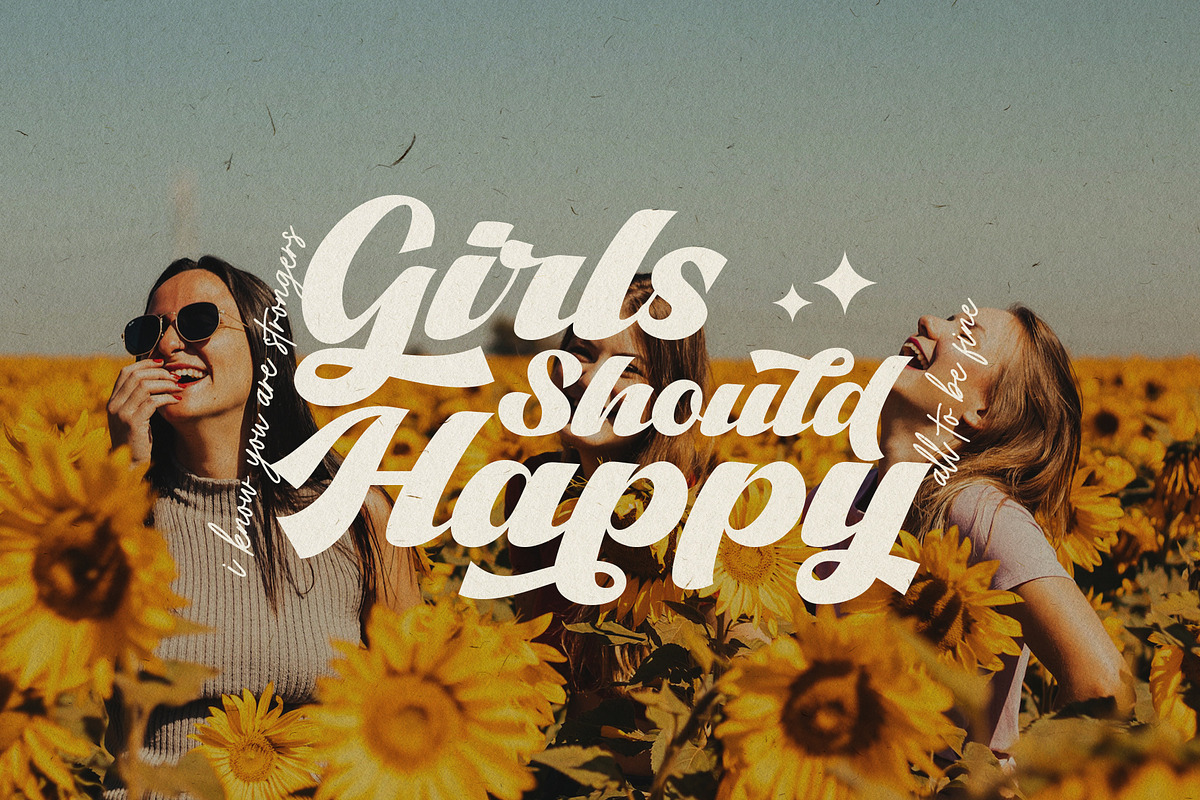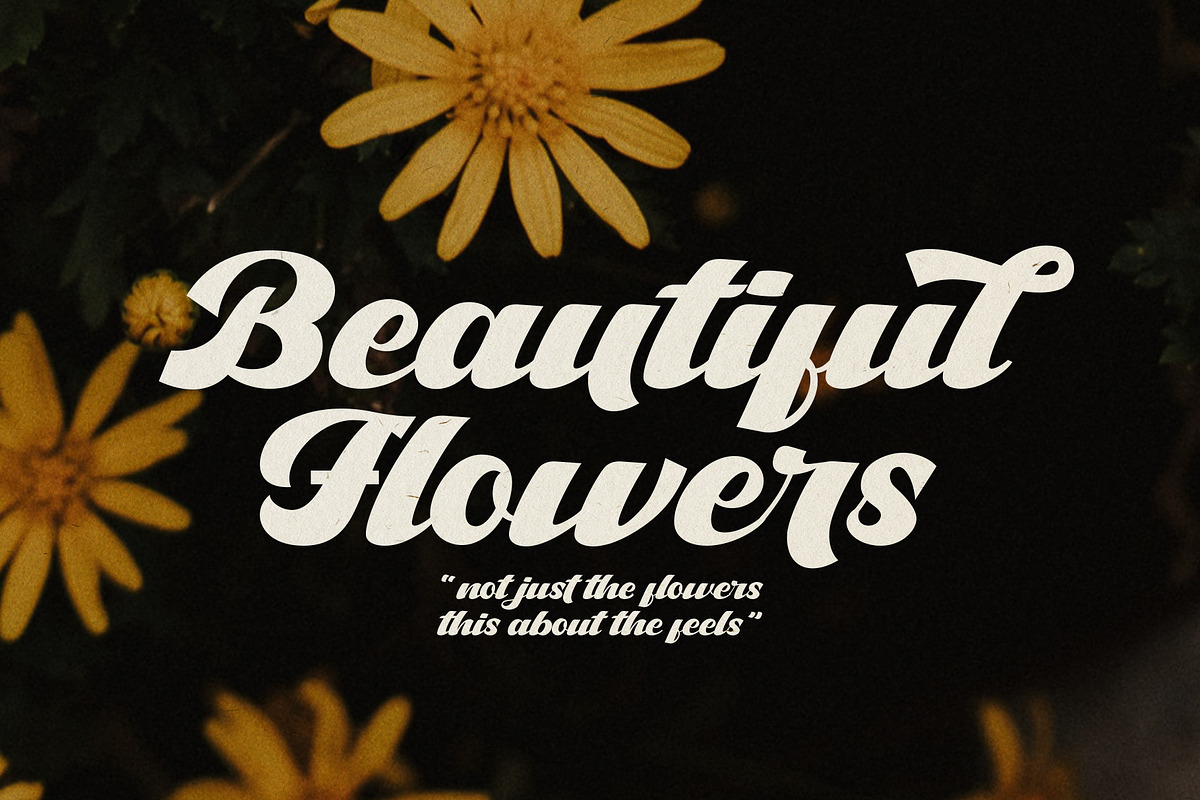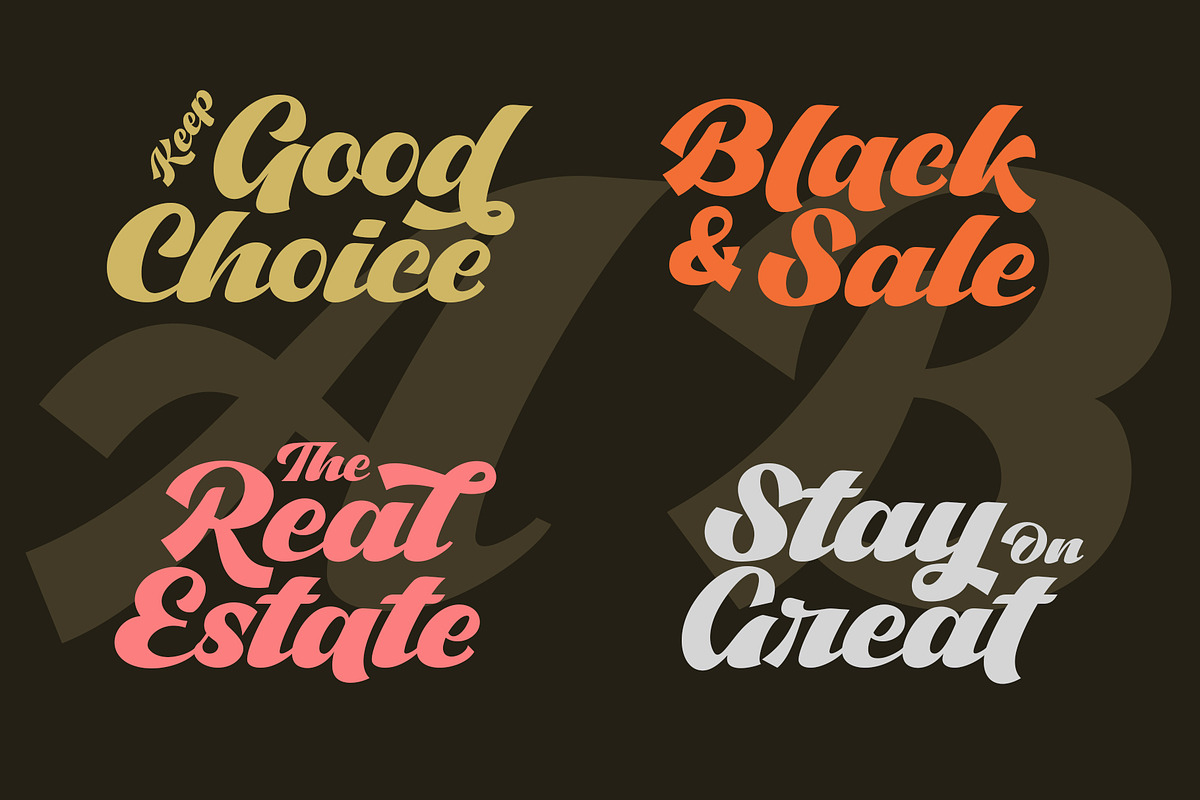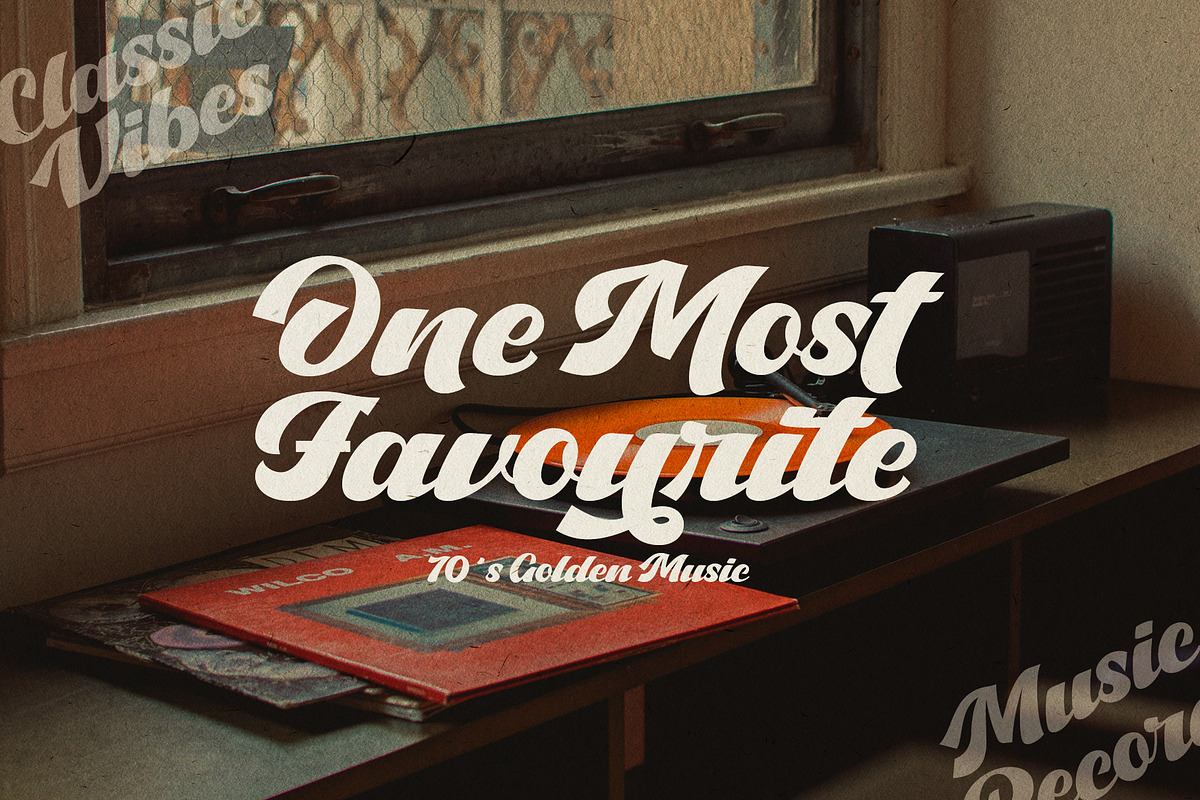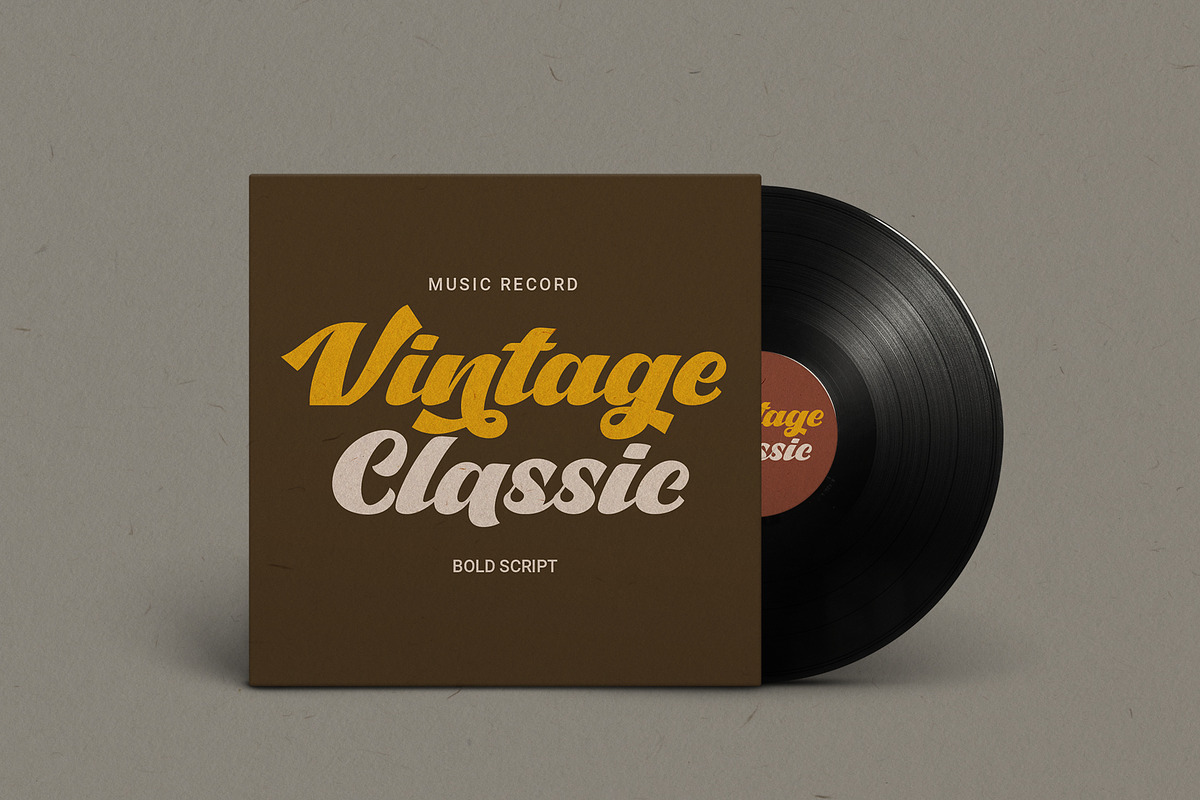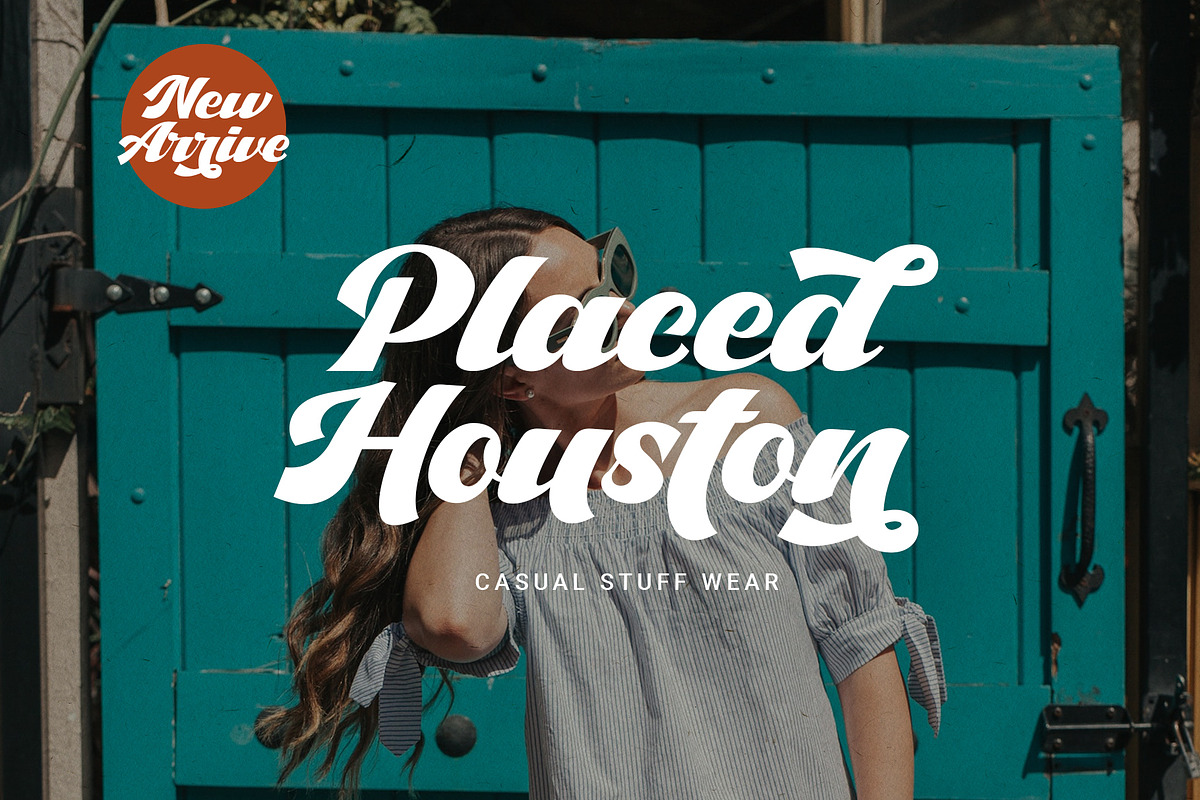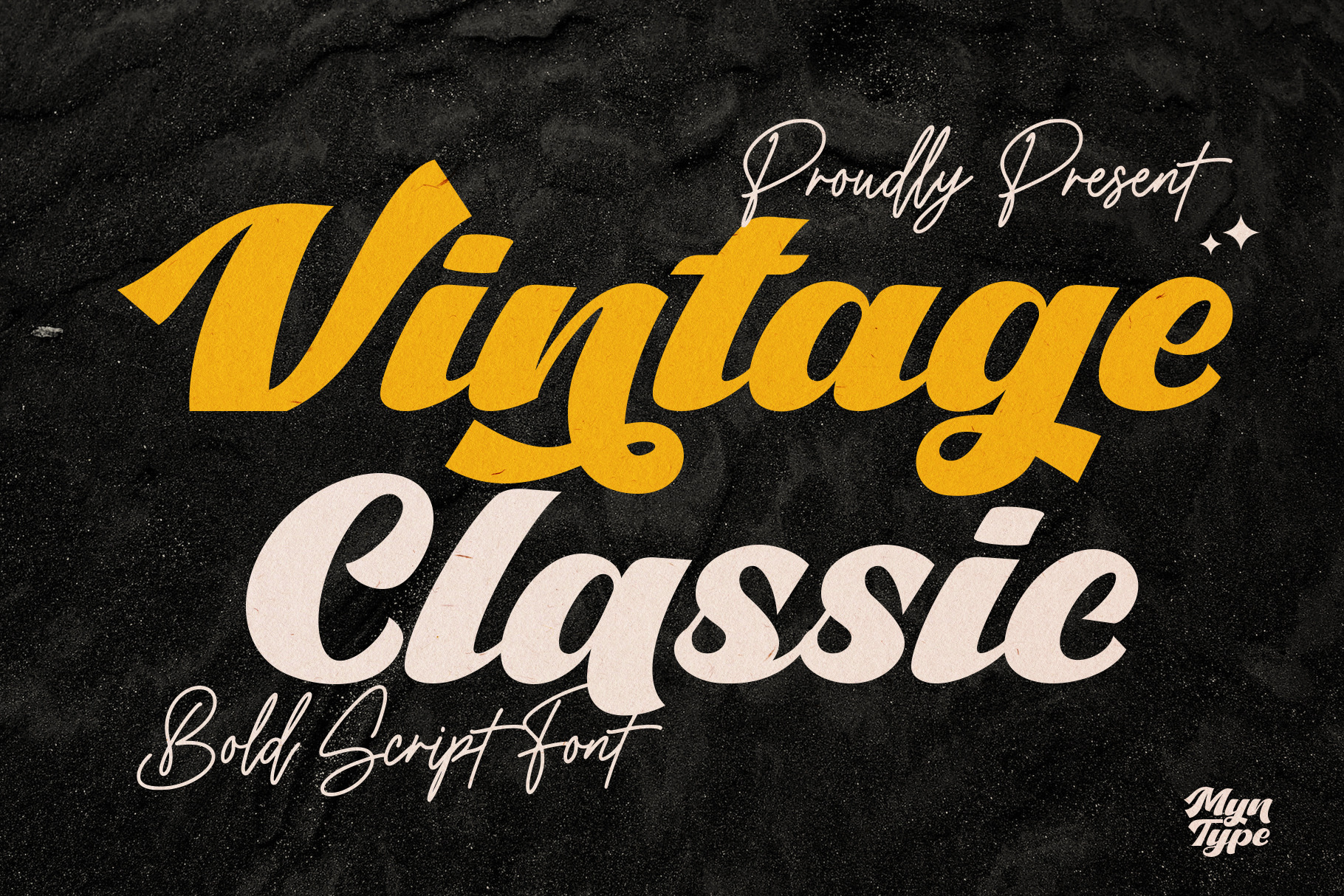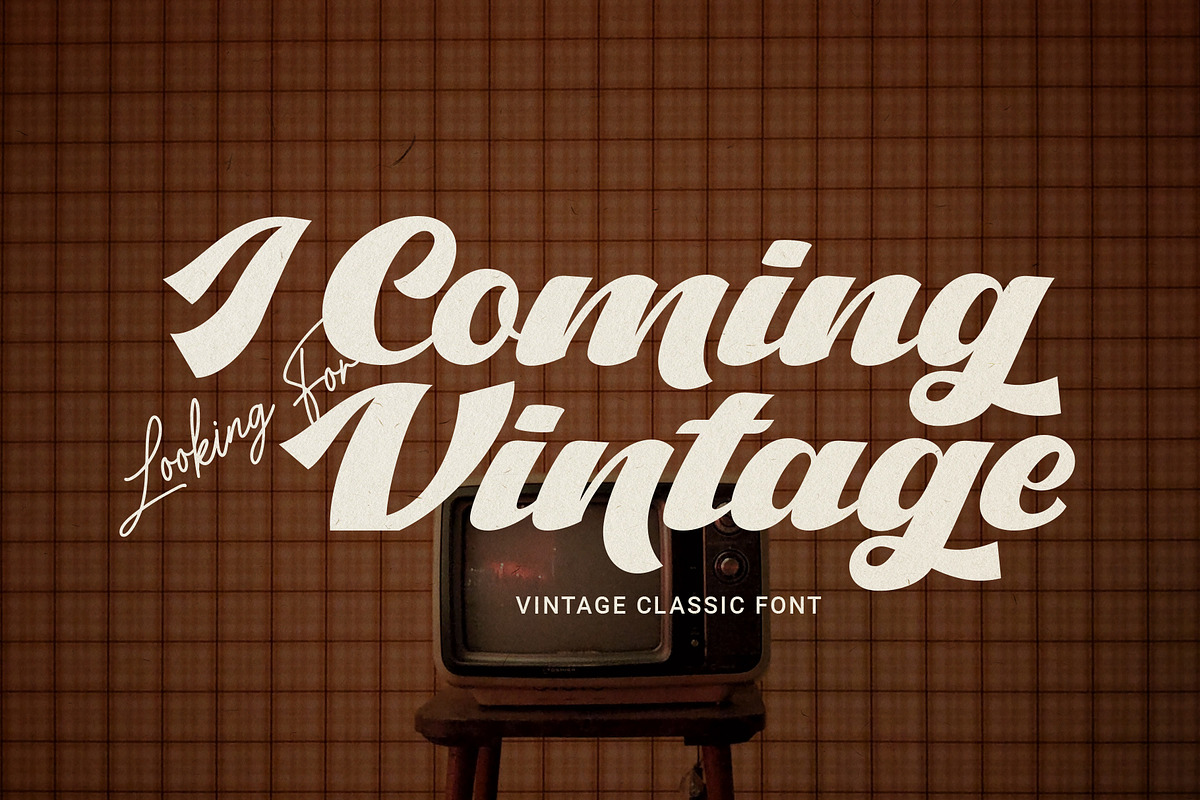
Vintage Classic - Bold Script Font
Has Coming!
Unveiling the all-new Vintage Classic bold script font, where timeless vintage charm meets contemporary boldness. If you're in search of a typeface that seamlessly blends the essence of the past with the vibrancy of the present, look no further than Vintage Classic font.
What sets Vintage Classic its bold and prominent appearance. The thick, sweeping lines and robust letterforms accompanied by alternates letters UPPERCASE and lowercase make a striking impression, ensuring that your text commands attention and leaves a lasting impact. Whether you're designing a vintage-inspired logo, signage, apparel design, quote or packaging, Vintage Classic will infuse your project with an unmistakable sense of character and strength.